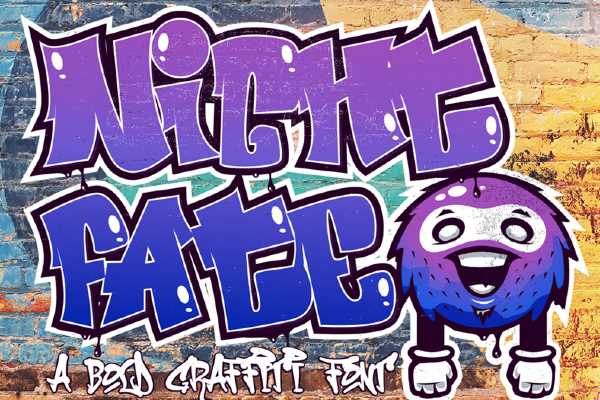
The graffiti style of font originated by the high-school student Darryl McCray, known by his tagging name Cornbread. He is considered one of the first Graffiti writers in Philadelphia. This font is perfect for street art, wavy typefaces, and urban design. Graffiti font is characterized by its unique and bold style. Thanks to its unique style, graffiti font is often used in advertising and street art. Using a graffiti font generator tool, you can create fantastic graffiti text without design skills. Simply enter the text you want to generate and select the options like font type, size, color, and background color to create a perfect design. You can then download and use the image for your personal or commercial projects.